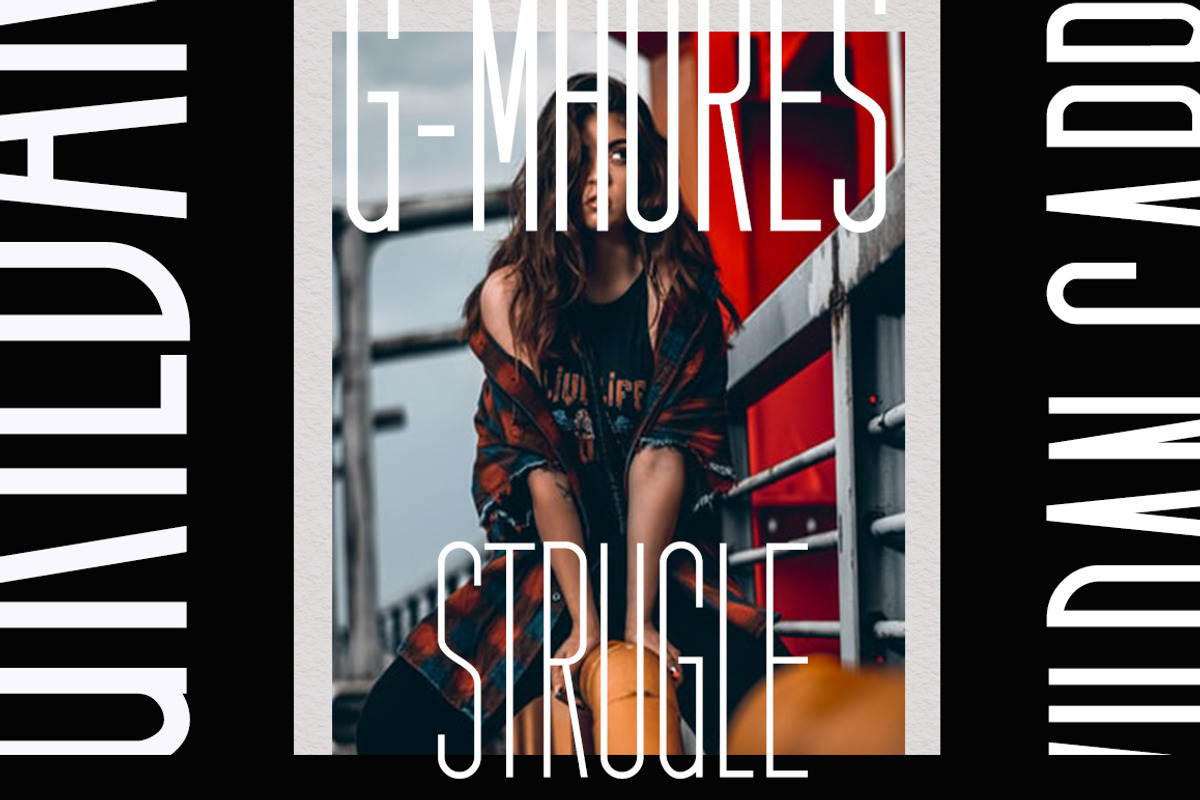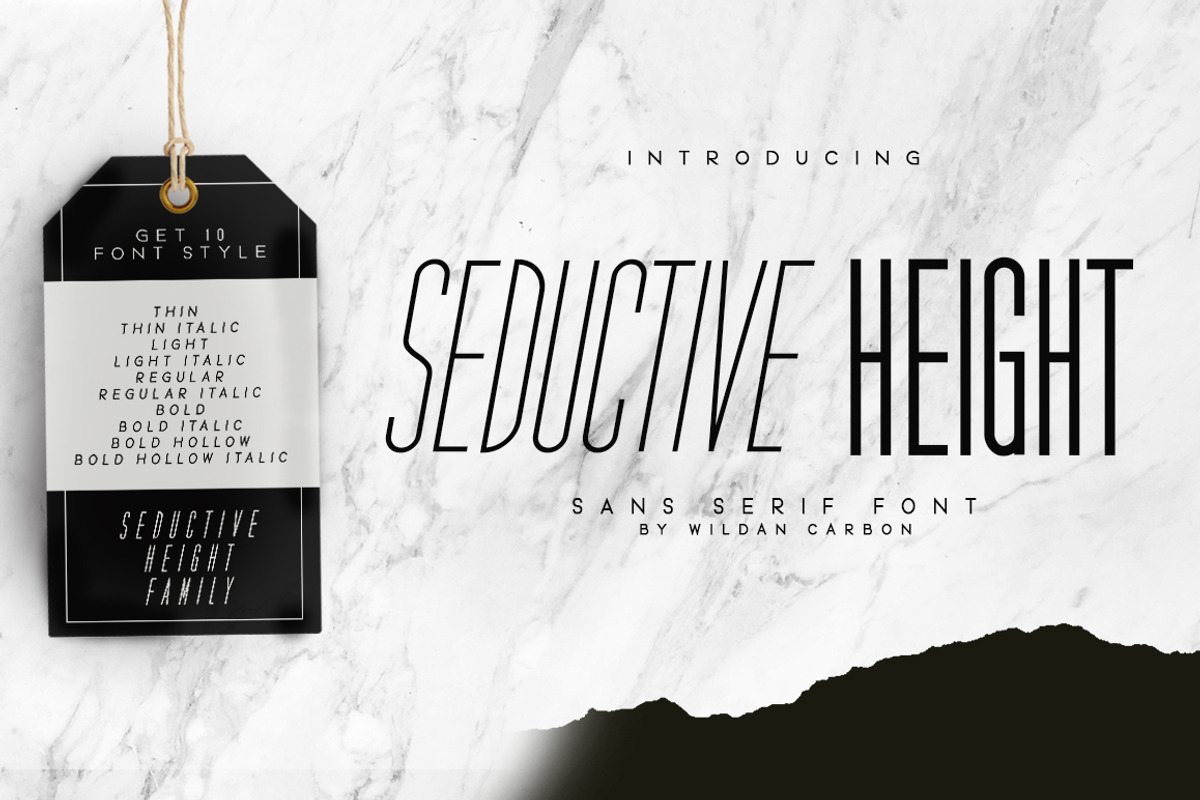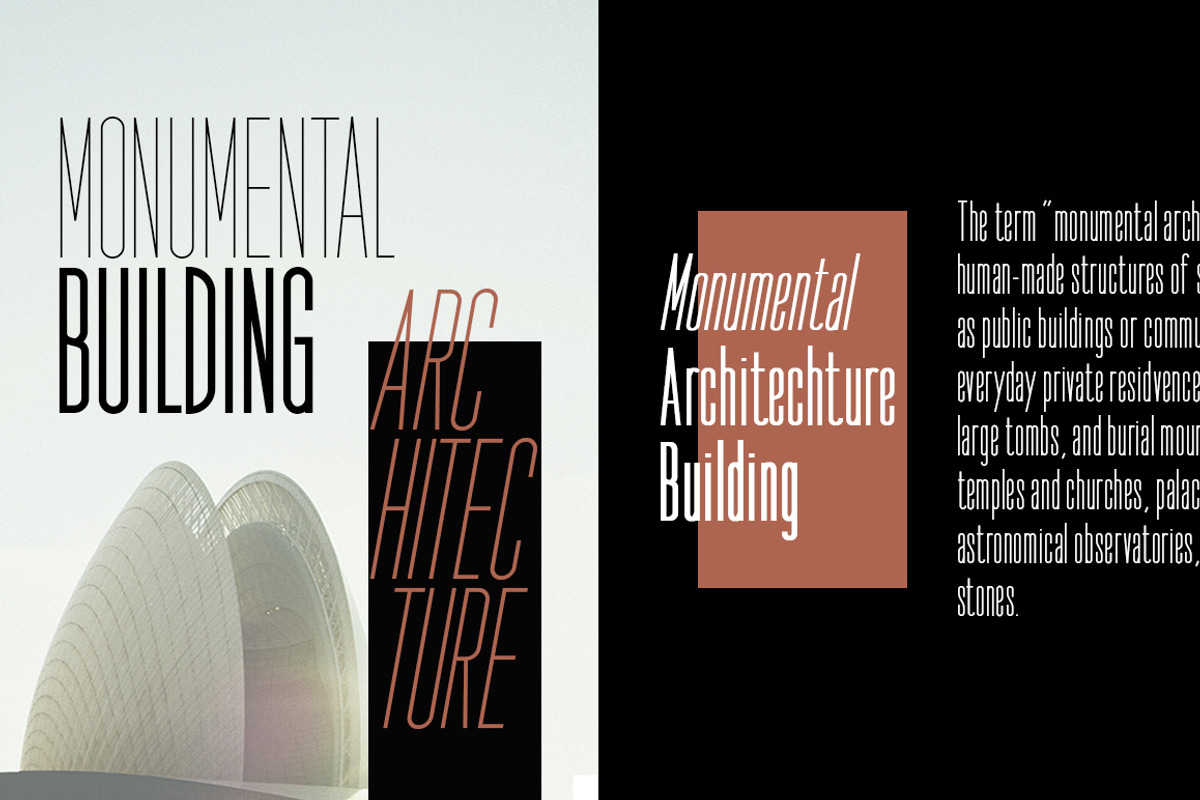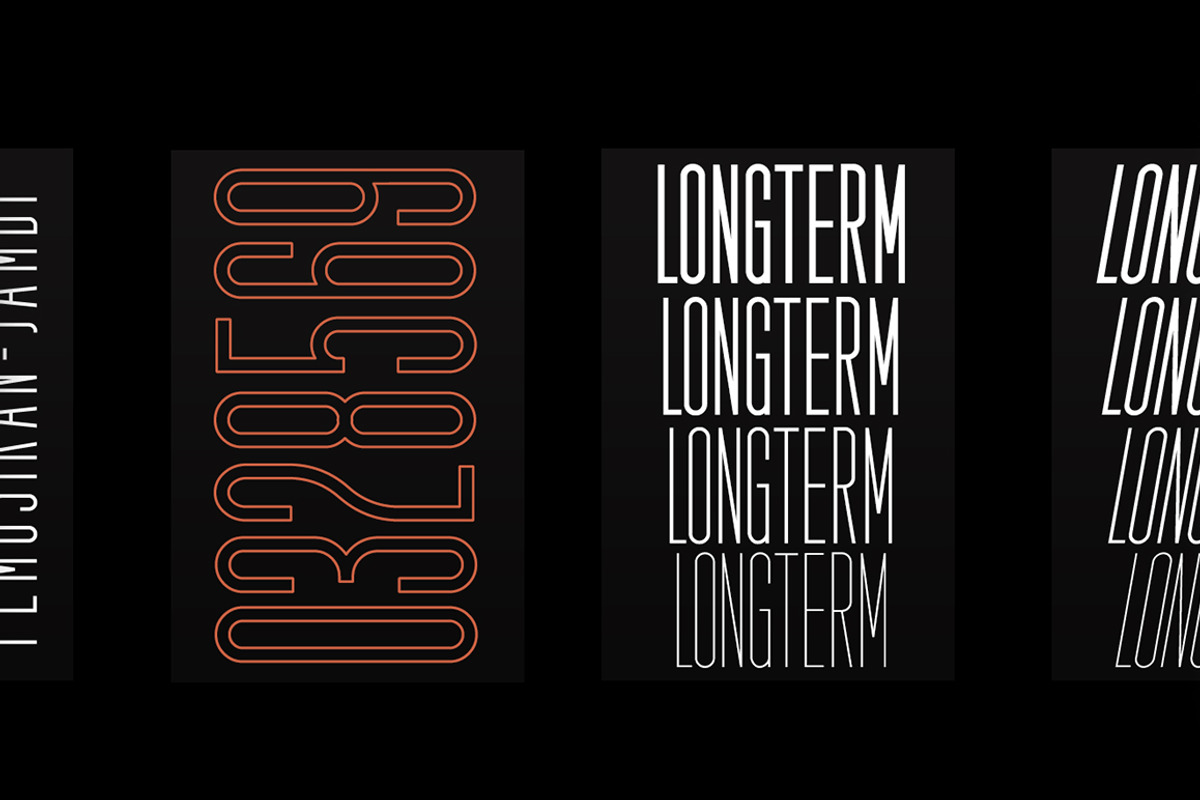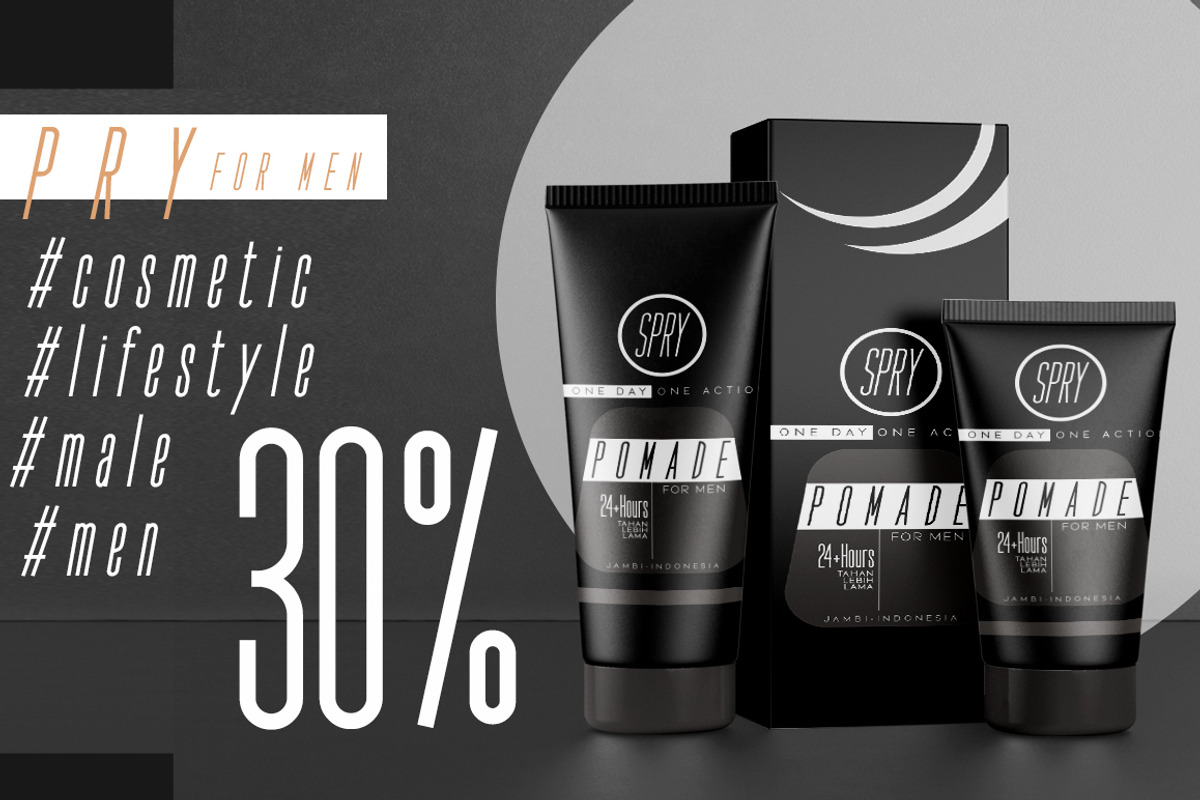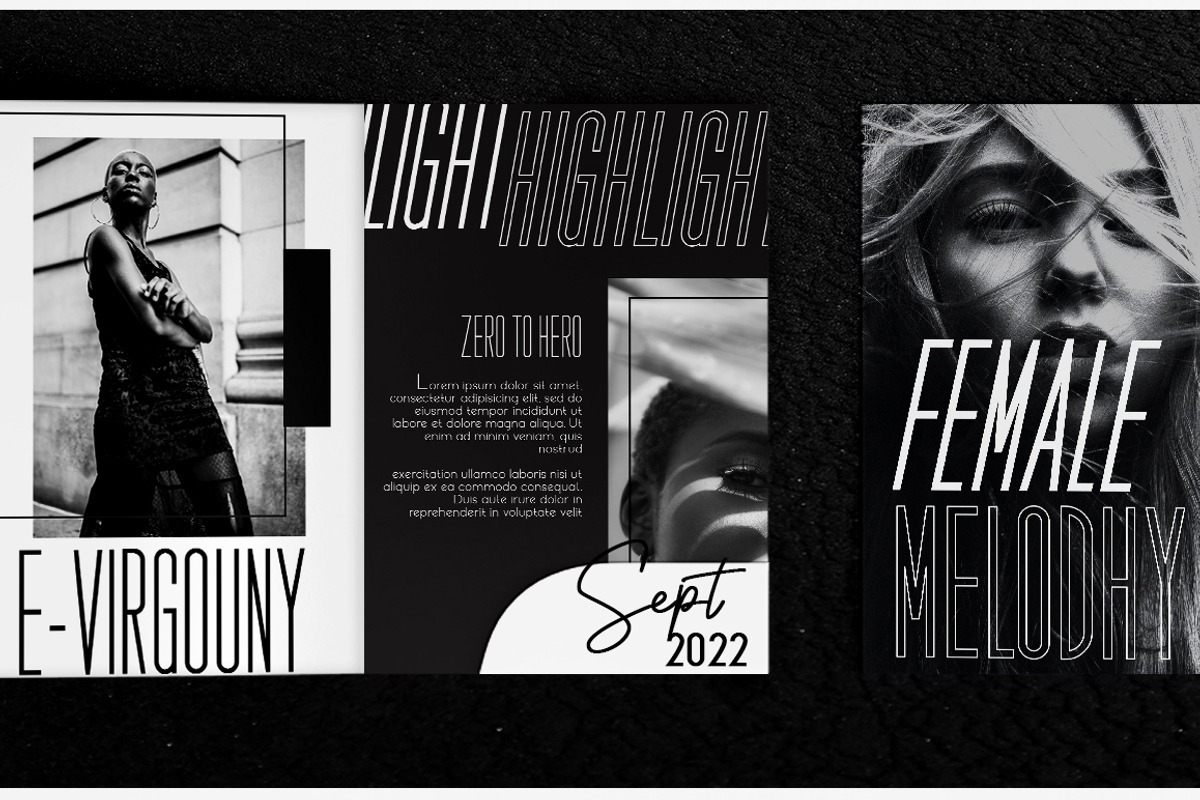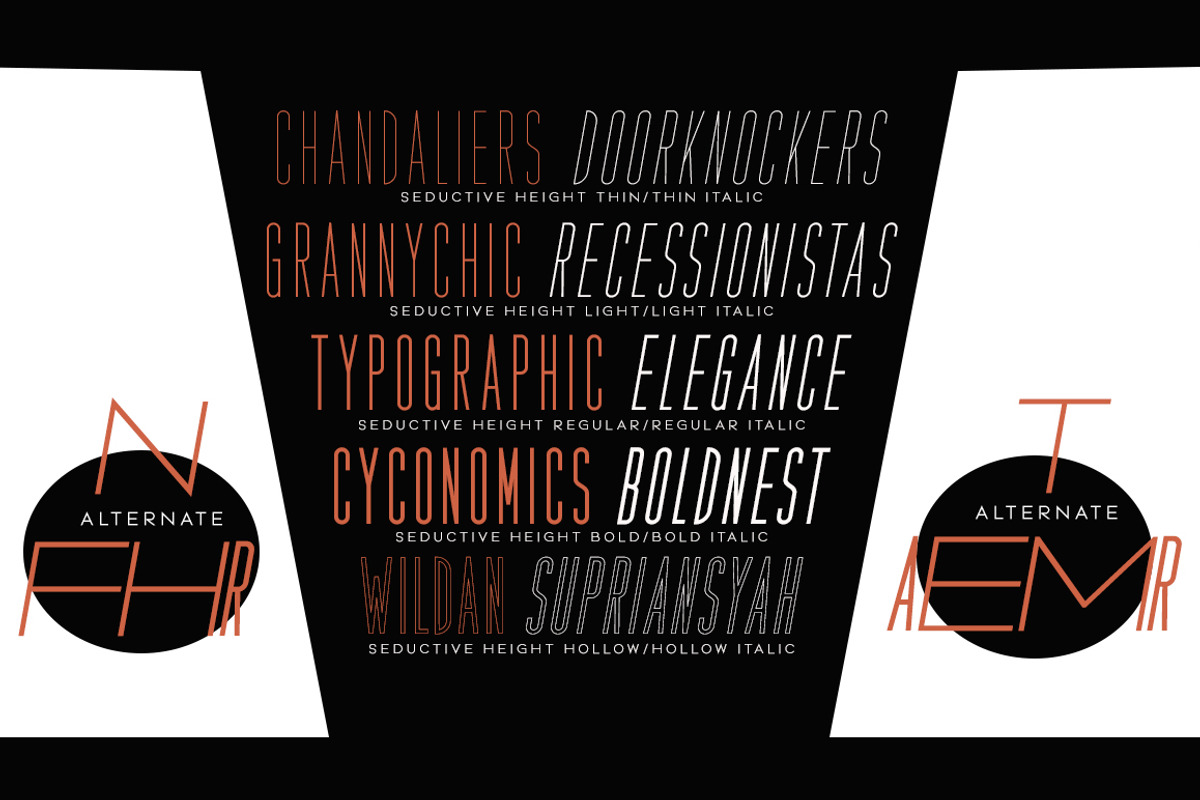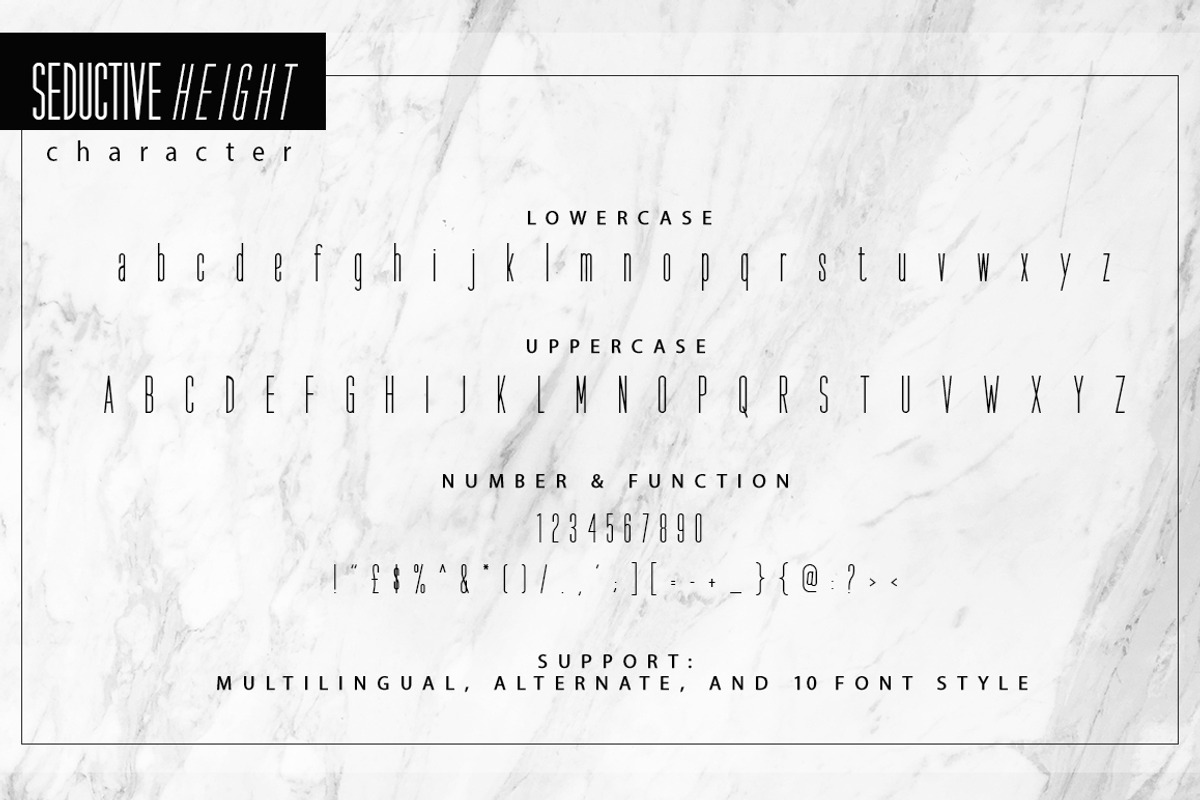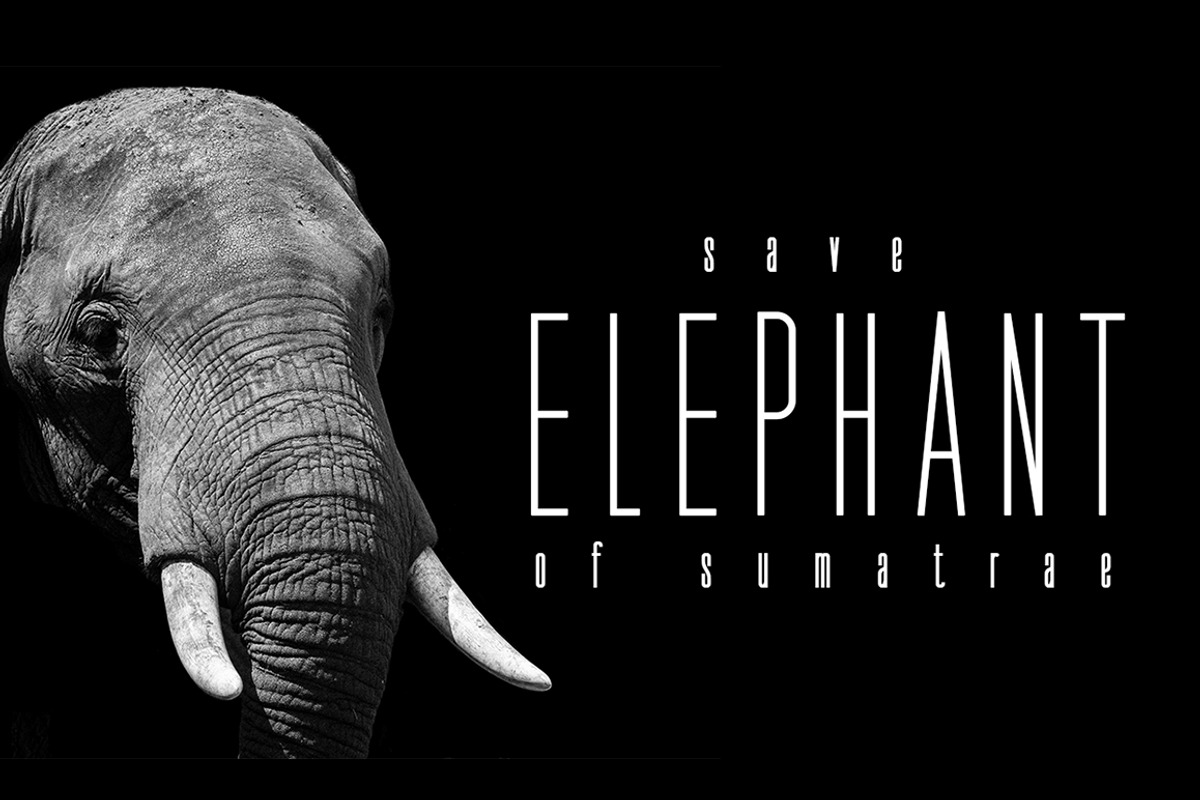
Seductive Height
HI. Thanks for waiting. Finally Seductive Height has been realised Seductive Height is sans serif font. It is unic font. all Character have hight stem. That make this font look simple but elegant. Seductive Family has 10 font style with different wieght. you also will get lowercase, uppercase, number, function, multilingual, and some alternate. Suitable for many project (formal or informal).
Get 10 style
- Seductive Height Thin
- Seductive Height Thin Italic
- Seductive Height Light
- Seductive Height Light Italic
- Seductive Height Regular
- Seductive Height Regular Italic
- Seductive Height Bold
- Seductive Height Bold Italic
- Seductive Height Bold
- Seductive Height Bold Hollow Italic
Features Lowercase/Uppercase/ Numbers & Punctuation / Extensive Language Support/Alternate